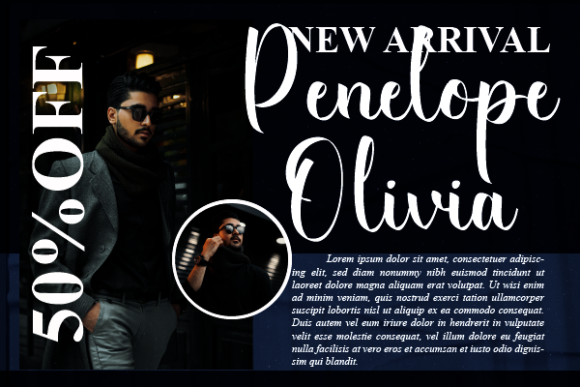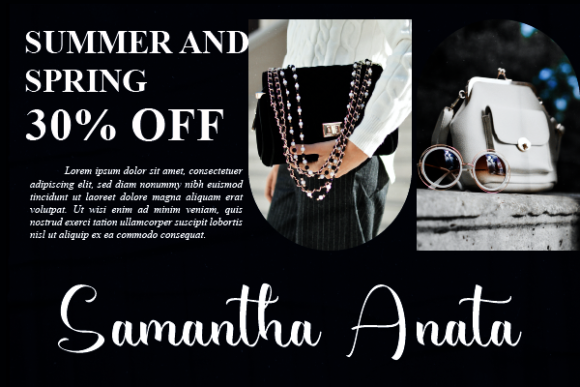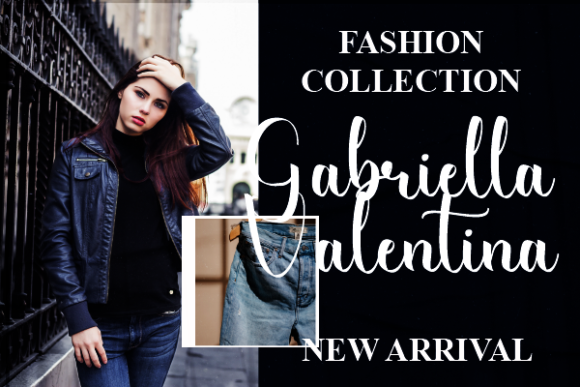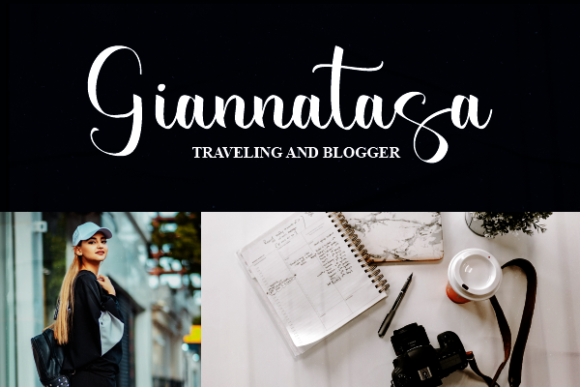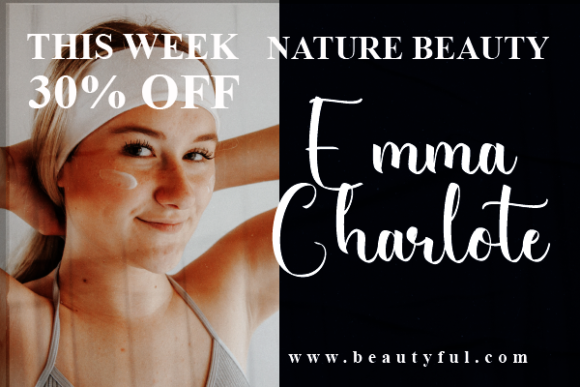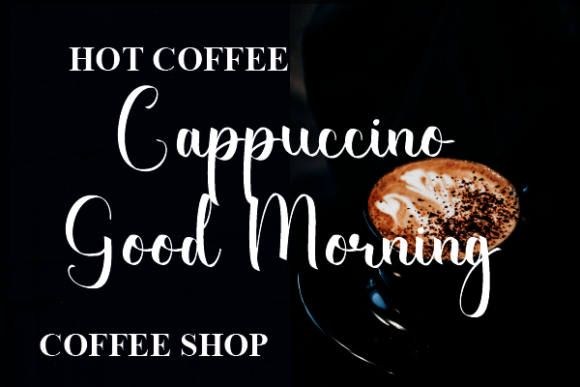
Introduction to Ophelia Jennifer Font
Have you ever been working on a creative project, pouring your heart and soul into it, and then, suddenly, you stumble upon the perfect font to bring it all together? That’s exactly what happens when you come across the elegant Ophelia Jennifer Font. Its delicate, flowing letters seem to dance across the page, adding a touch of sophistication and class to any design.
As a valuable resource for designers, the Ophelia Jennifer Font is a game-changer. With its high-quality characters and well-balanced design, it’s the perfect addition to any project, whether you’re working on a logo, a website, or a brochure. And the best part? It’s available for free download, making it accessible to designers of all levels.
Whether you’re working on a design project with a transparent background or need a font to match your creative vision, the Ophelia Jennifer Font is sure to deliver. Its versatility and timeless elegance make it a must-have in your design arsenal.
Ophelia Jennifer Font
- High-quality, elegant script font designed for creative projects and design resources.
- Comes with a transparent background, making it perfect for use on any background or design element.
- Features a beautiful, cursive design with subtle flourishes and elegant curves, ideal for adding a touch of sophistication to any creative project.
- Includes a range of OpenType features, such as ligatures and swashes, allowing for a high level of customization and control.
Honest Review: Ophelia Jennifer Font
As a designer, I’m always on the lookout for high-quality design resources to elevate my creative projects. Recently, I had the chance to work with the Ophelia Jennifer Font, and I must say, it’s a great addition to my design arsenal.
What works well is the font’s versatility. I used it for a branding project and was impressed by how easily it adapted to different design elements. The Ophelia Jennifer Font has a beautiful, elegant touch that adds a professional feel to any design. The transparent background feature also made it easy to layer with other design elements.
- ✨ High-quality font that’s perfect for creative projects
- ✨ Versatile design that adapts well to different elements
- ✨ Transparent background feature for easy layering
However, I did encounter some limitations. The font file size is a bit large, which can slow down loading times. Additionally, some characters may require manual adjustment to ensure proper spacing.
- ⚠️ Some characters may require manual adjustment
Overall, I’m impressed with the Ophelia Jennifer Font. It’s a great design resource for anyone looking to add a touch of elegance to their creative projects. The free download option is a bonus, making it an accessible choice for designers of all levels.
Ophelia Jennifer Font is a beautiful, high-quality design resource perfect for creative projects. Its transparent background and elegant style make it an ideal choice for various applications.
Ophelia Jennifer Font is perfect for:
- Branding and marketing materials.
- Editorial and publishing projects.
For the best results, use Ophelia Jennifer Font in combination with a high-quality image or background. You can also experiment with different font sizes and styles to create a unique look.
Is Ophelia Jennifer Font suitable for high-quality print projects?
Yes, Ophelia Jennifer Font is designed to be a high-quality font, making it suitable for a wide range of print projects, including business cards, brochures, and posters. However, please note that the quality of the print will also depend on the resolution and settings used in your design software.